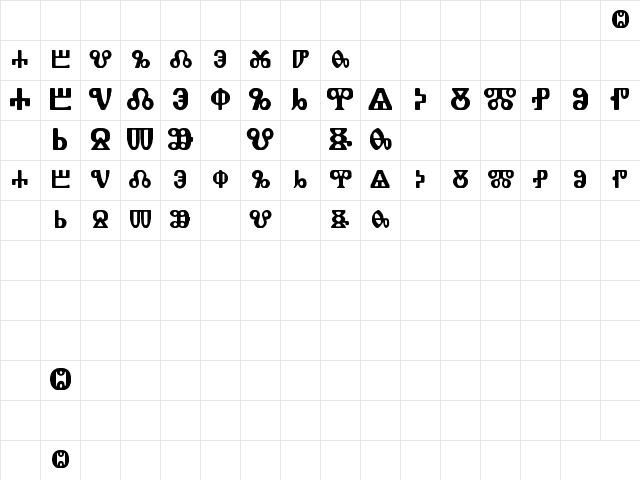
g?agolica Regular
Design Context for g?agolica
g?agolica is a composed and adaptable typeface that performs quietly and consistently across a wide range of design contexts.